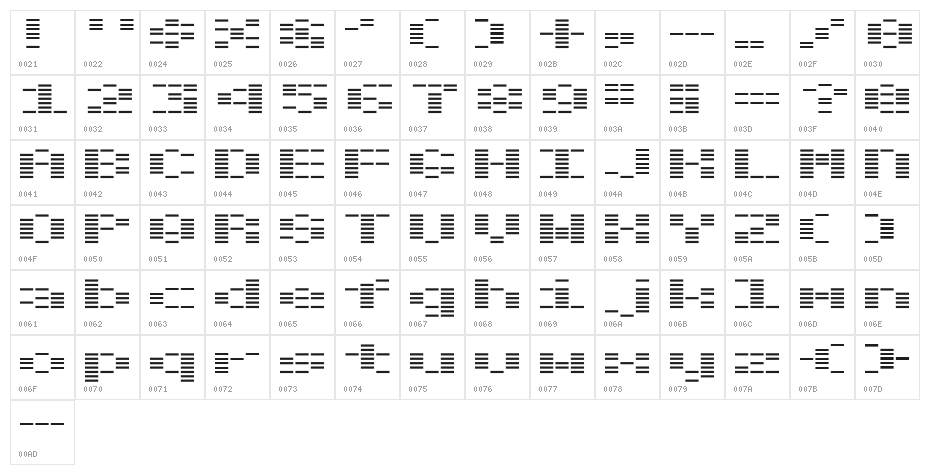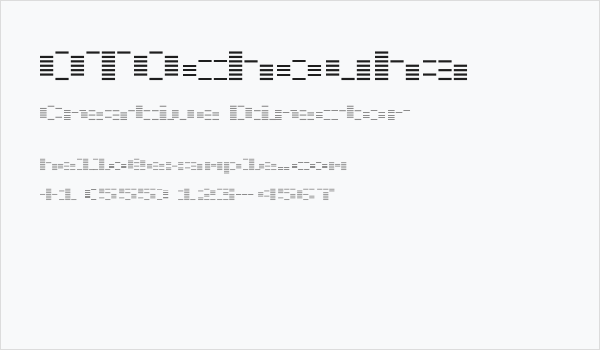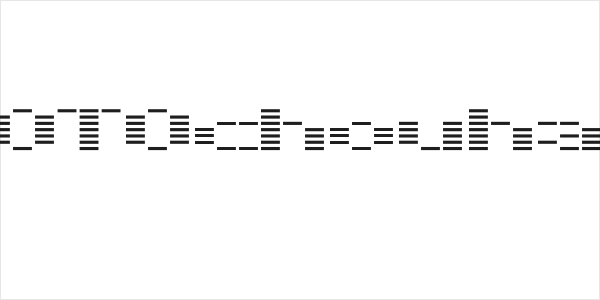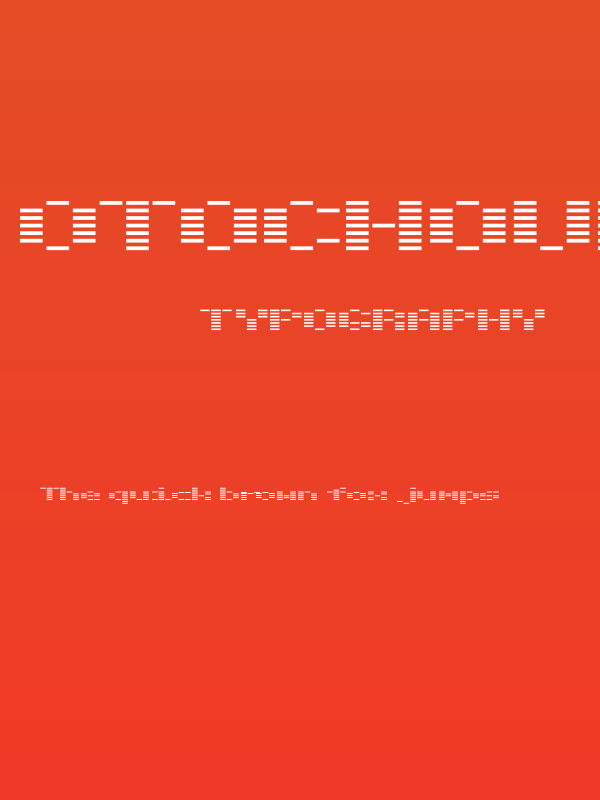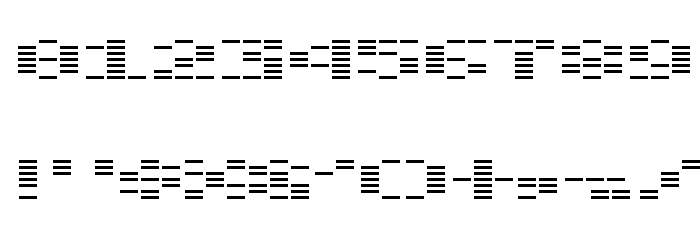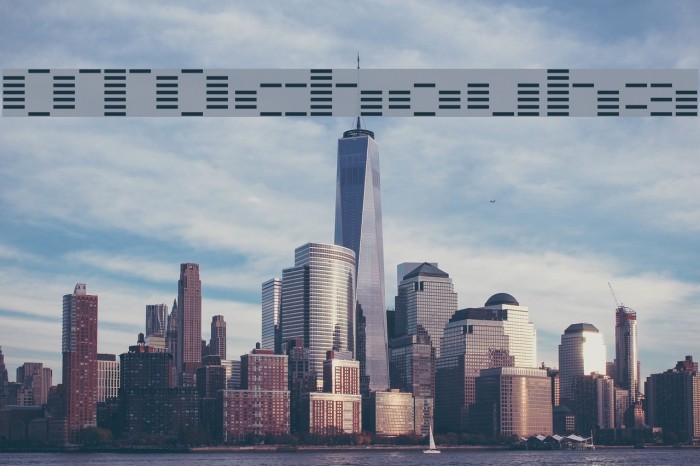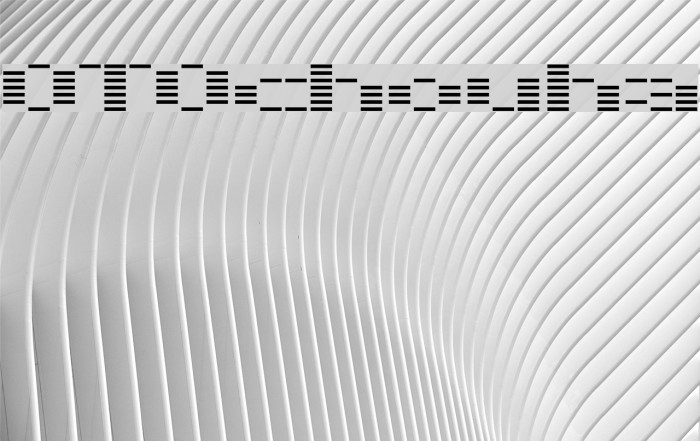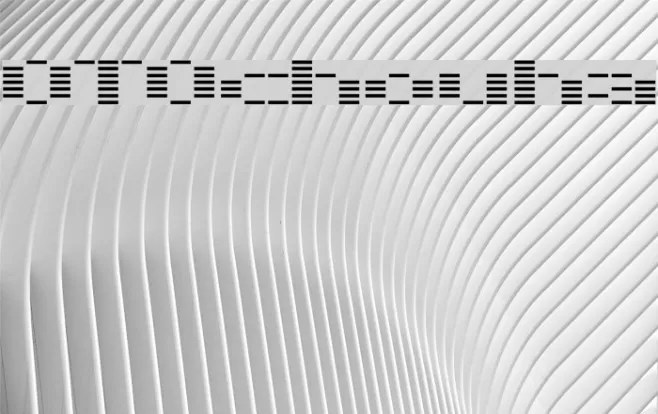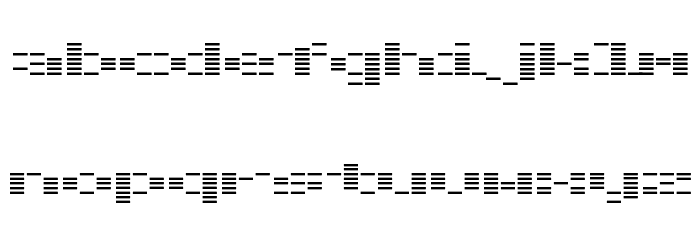
OTOchouha Font
OTOchouha Description
This font features a unique, segmented design where each character is composed of horizontal lines, creating a digital or mechanical appearance. The characters are evenly spaced and maintain a consistent height, giving the font a structured and uniform look. The uppercase and lowercase letters, as well as numbers and special characters, follow this segmented pattern, which adds a modern and futuristic touch. The font's style is reminiscent of early digital displays or dot matrix printers, making it suitable for projects that require a retro or tech-inspired aesthetic.
| Use Case | Logos, Headlines, Digital displays |
| Proposed Projects | Ideal for digital displays, tech-themed designs, retro gaming graphics, and futuristic branding. |